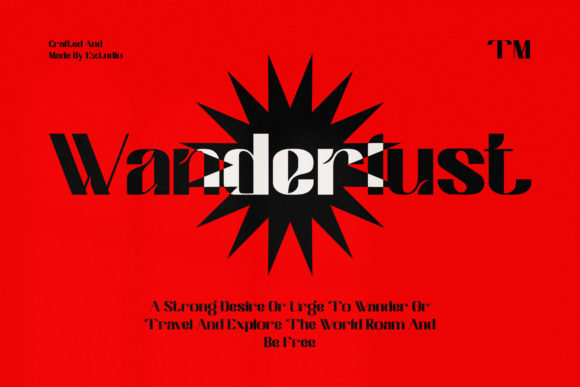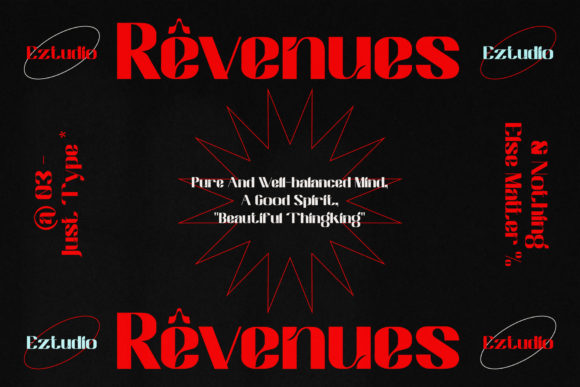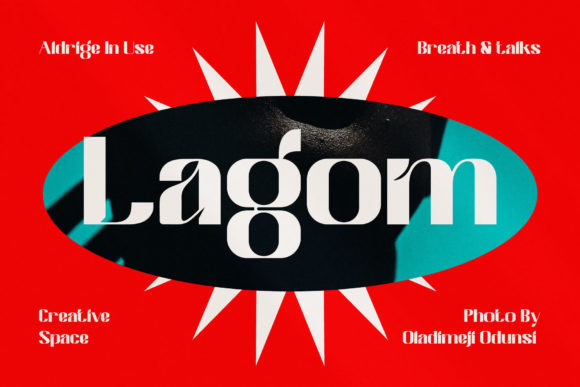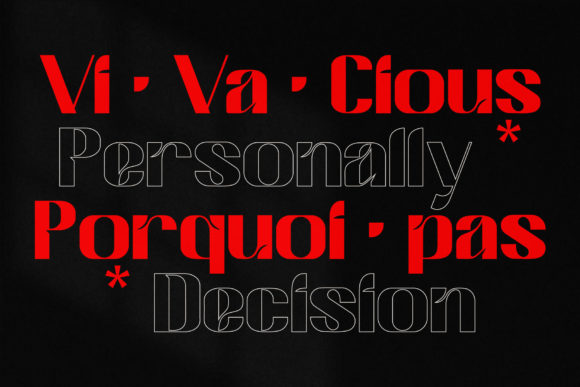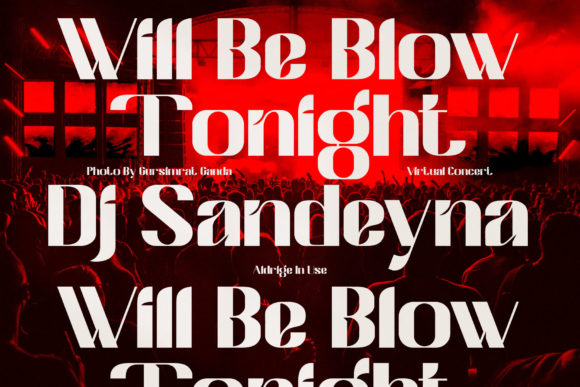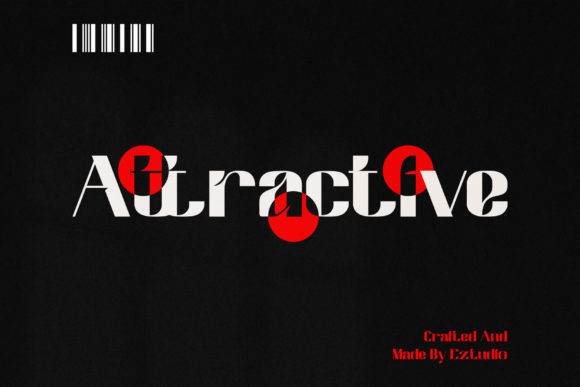
Aldridge Font: The Ultimate Choice for Bold and Modern Designs
In the world of typography, fonts play a crucial role in making a design stand out. For designers and crafters looking for a cool, bold, and modern display font, Aldridge Font is an excellent choice. This versatile font is perfect for a wide range of designs, including t-shirts, sportswear, logos, advertisements, clothing, and more.
What Makes Aldridge Font So Special?
Aldridge Font boasts a unique and stylish design that instantly grabs attention. Its bold and modern aesthetic makes it perfect for designs that require a statement piece. The font’s clean lines, precise curves, and well-balanced structure ensure that it looks great in various sizes and resolutions.
Key Features of Aldridge Font
- Bold and Modern Design: Aldridge Font features a bold and modern design that is perfect for making a statement.
- Highly Versatile: This font is suitable for a wide range of designs, from t-shirts and sportswear to logos, advertisements, and clothing.
- Clean Lines and Precise Curves: The font’s clean lines and precise curves ensure that it looks great in various sizes and resolutions.
- Easy to Read: Despite its bold design, Aldridge Font is easy to read, making it perfect for designs that require a clear and concise message.
Use Cases for Aldridge Font
Aldridge Font is an excellent choice for various design projects, including:
- T-Shirts and Apparel: Create stunning t-shirts, hoodies, and other apparel with Aldridge Font.
- Logos and Branding: Use Aldridge Font to create bold and modern logos that make a statement.
- Advertisements: Perfect for advertisements that require a bold and attention-grabbing font.
- Sportswear and Fitness: Aldridge Font is an excellent choice for sportswear and fitness designs that require a bold and modern aesthetic.
- Clothing and Fashion: Use Aldridge Font to create stunning clothing and fashion designs that stand out.
Why Designers and Crafters Love Aldridge Font
Designers and crafters love Aldridge Font for its versatility, bold design, and ease of use. Here are some reasons why:
- High-Quality Design: The font’s high-quality design ensures that it looks great in various sizes and resolutions.
- Customizable: Aldridge Font can be easily customized to fit your design needs.
- Time-Saving: With Aldridge Font, designers and crafters can save time and focus on other aspects of their design project.
In conclusion, Aldridge Font is an excellent choice for designers and crafters looking for a cool, bold, and modern display font. Its versatility, ease of use, and high-quality design make it perfect for a wide range of designs, from t-shirts and sportswear to logos, advertisements, and clothing. With Aldridge Font, you can create stunning designs that stand out and make a statement.